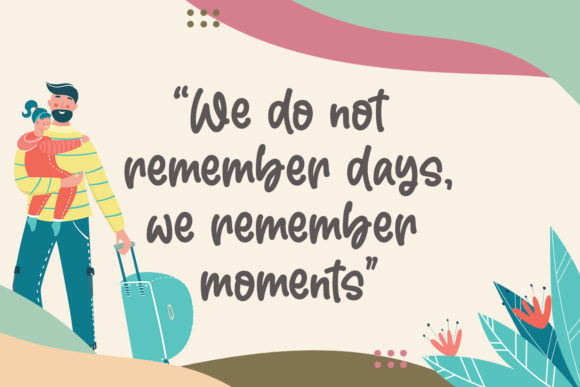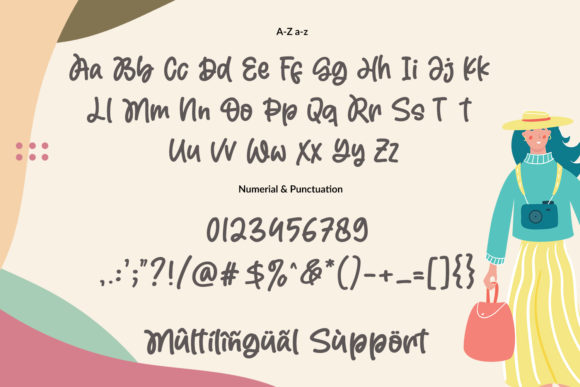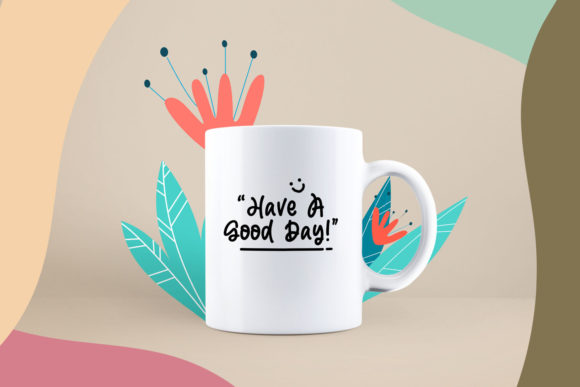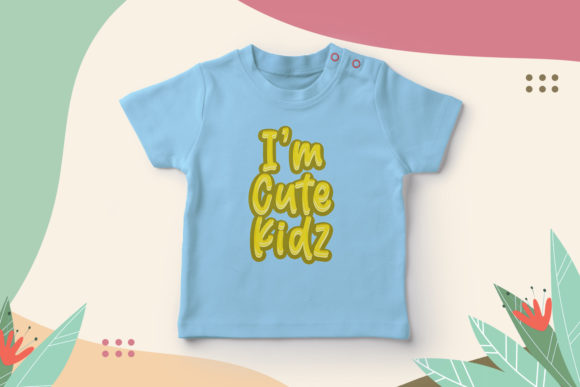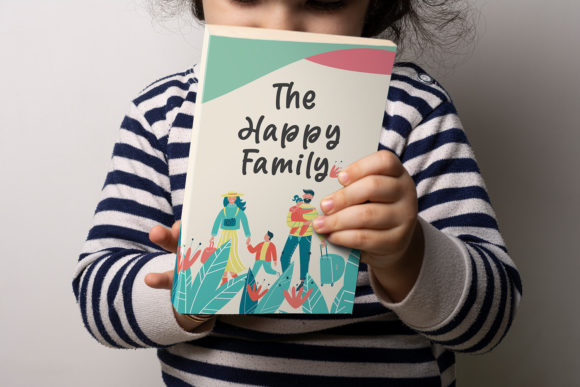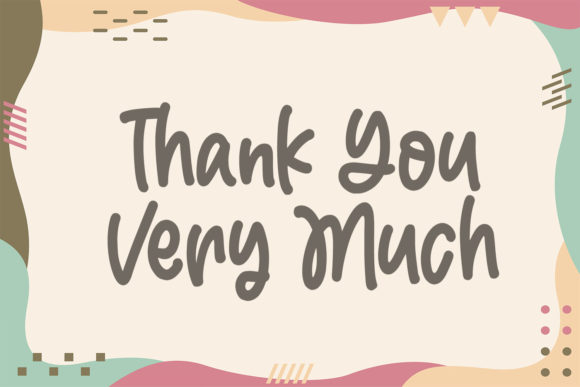
Introduction to Magic Holiday Font Font
Fonts play a crucial role in design, and the Magic Holiday Font font is a typeface that brings both character and versatility to any project. Whether you’re working on a branding project, a website, or a print design, the Magic Holiday Font font offers a unique style that can elevate your work.
Magic Holiday is a fun and whimsical paint brushed display font.
This font is perfect for children themed designs, especially when combined with bright colors .
Key Features of Magic Holiday Font Font
Why Choose Magic Holiday Font Font?
The Magic Holiday Font font is more than just a typeface – it’s a design tool that helps you communicate your message with style and clarity. Its unique character set and versatile design make it suitable for a wide range of applications, from elegant invitations to bold headlines.
With its carefully crafted letterforms and balanced proportions, the Magic Holiday Font font ensures readability and visual appeal across all mediums.
What makes Magic Holiday Font font special?
The Magic Holiday Font font stands out with its unique design, exceptional readability, and versatility across various design applications.